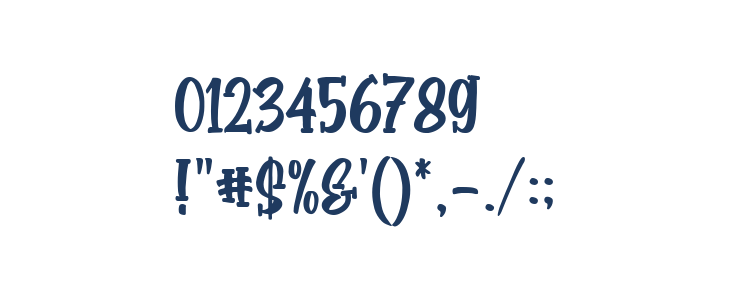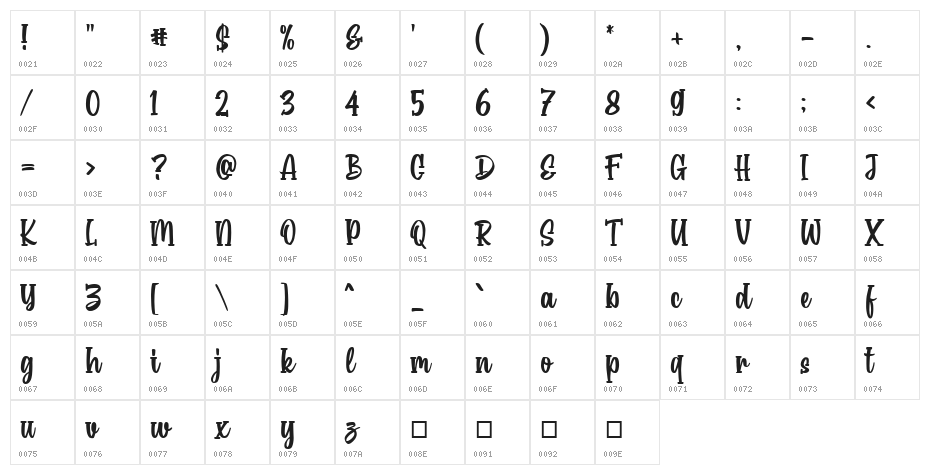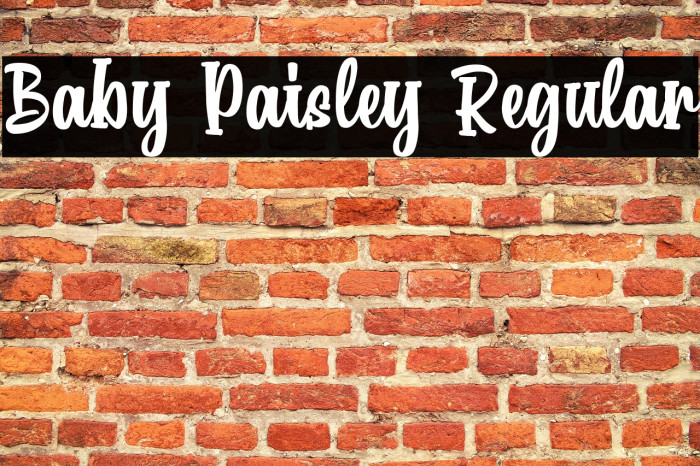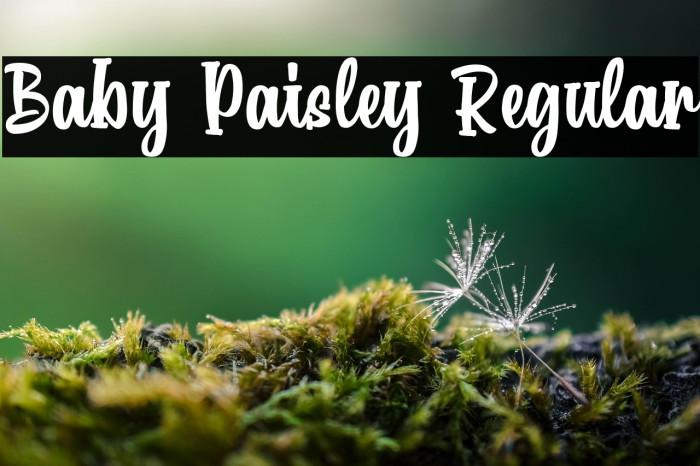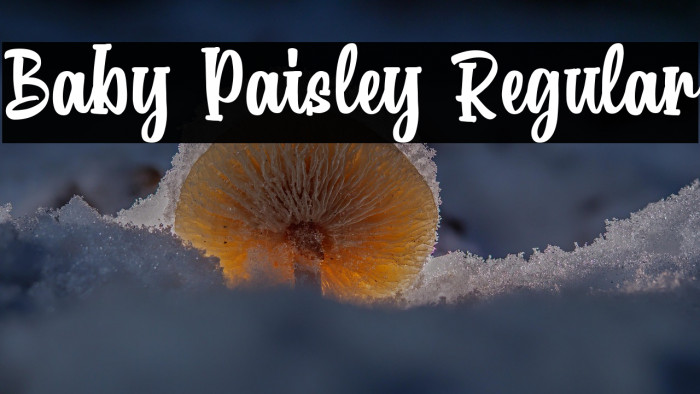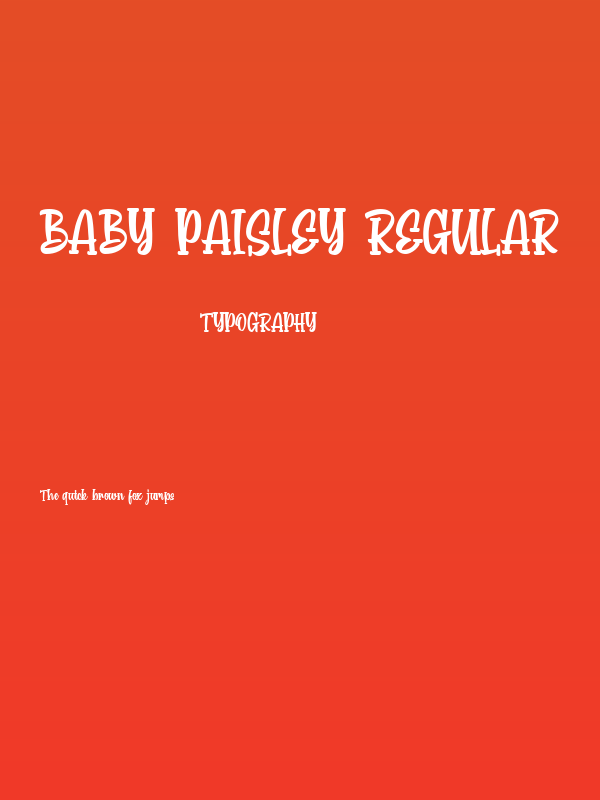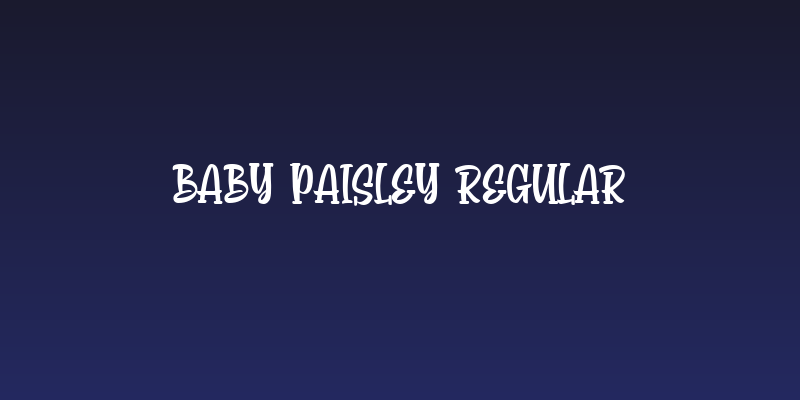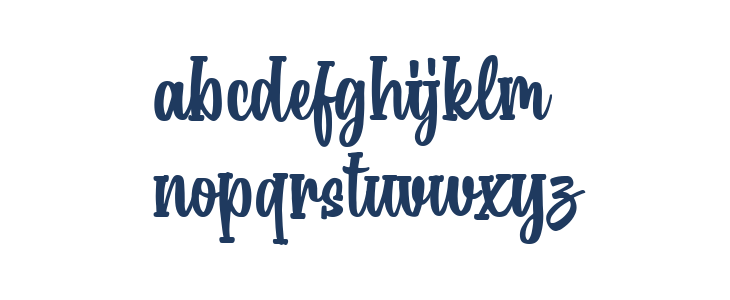
Baby Paisley Regular Font
Baby Paisley Regular Description
This playful and whimsical font features a handwritten style with a bold and lively appearance. The letters are characterized by their rounded edges and slightly irregular shapes, giving them a friendly and approachable feel. The uppercase letters are tall and slightly narrow, while the lowercase letters maintain a consistent height with a slight slant, adding to the casual aesthetic. The numbers and special characters are designed to match the overall style, ensuring a cohesive look across all text elements. This font is perfect for projects that require a touch of fun and creativity, such as children's books, playful branding, or casual invitations.
| Proposed Projects | Ideal for children's books, playful branding, casual invitations, and creative projects. |